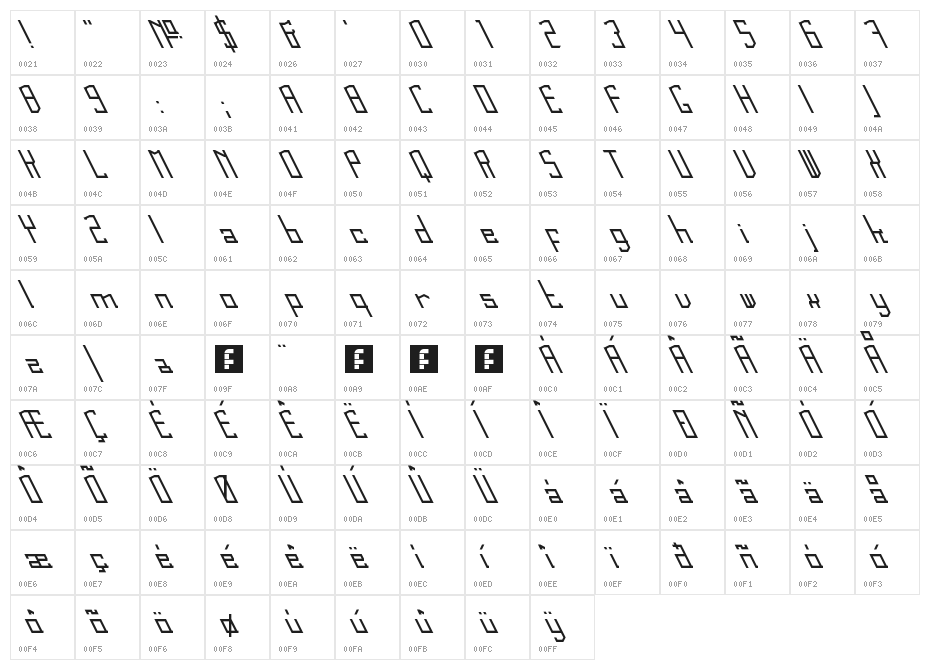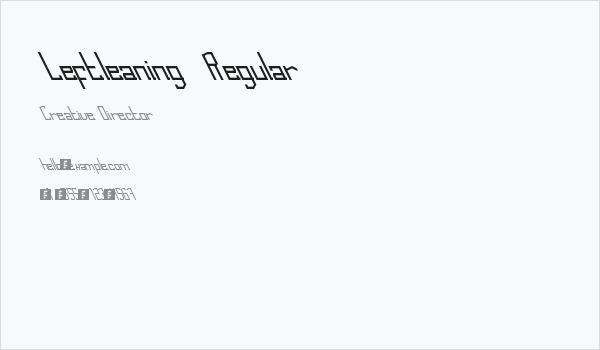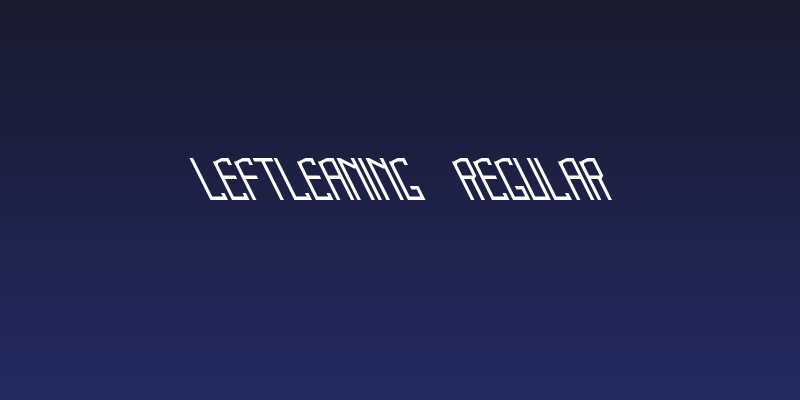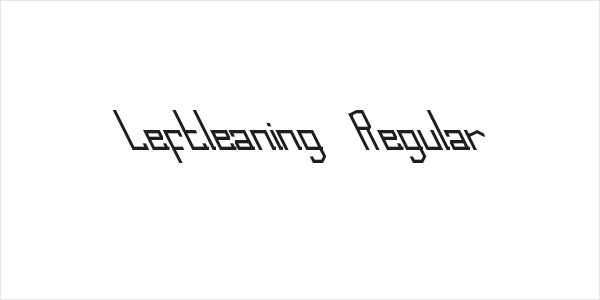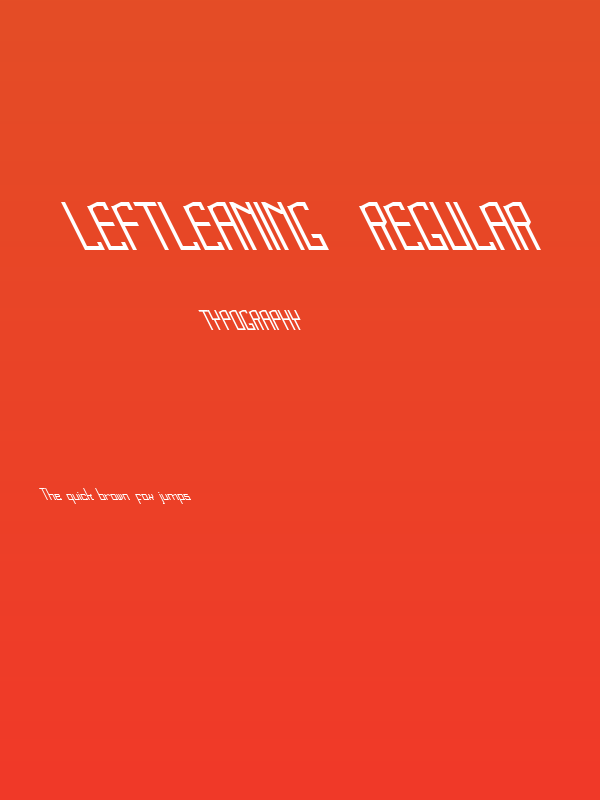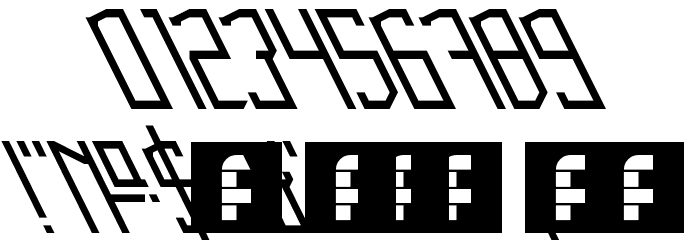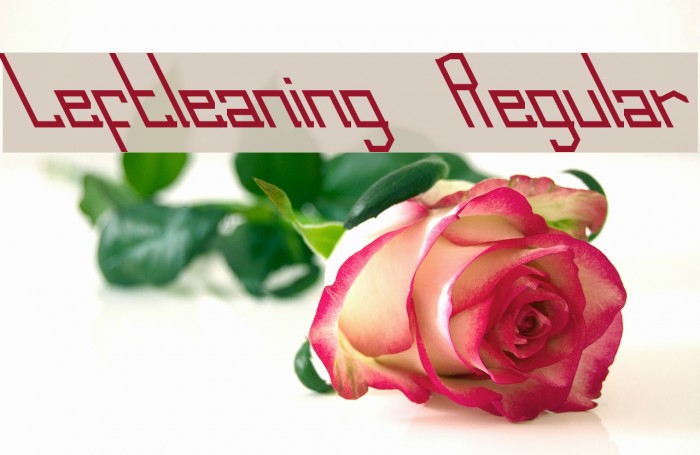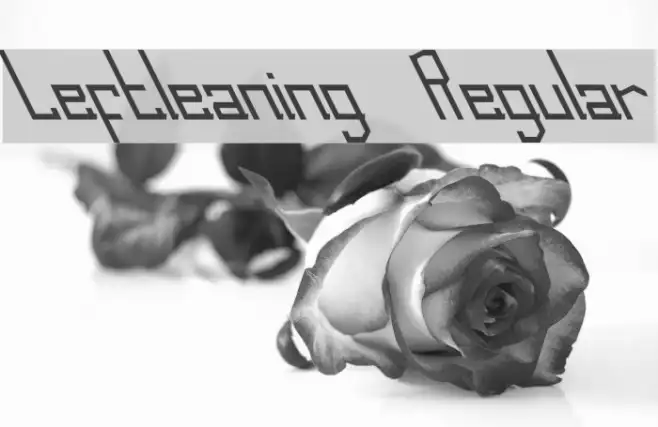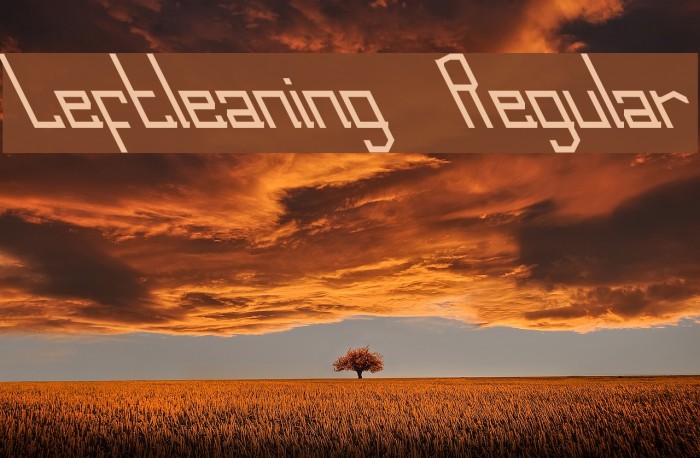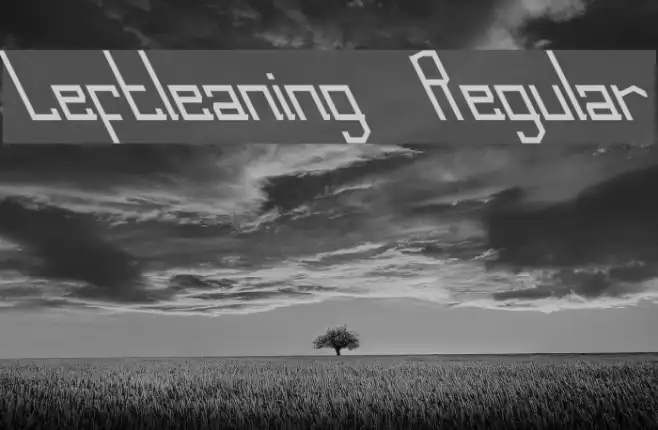
Leftleaning Regular Font
Leftleaning Regular Description
This font features a distinctive left-leaning, angular design that gives it a dynamic and modern appearance. The characters are composed of straight lines and sharp angles, creating a geometric and futuristic feel. The uppercase and lowercase letters maintain a consistent slant, enhancing the cohesive look of the typeface. The numerals and special characters follow the same stylistic approach, ensuring uniformity across all glyphs. This font's unique style makes it stand out, ideal for projects that require a bold and unconventional aesthetic.
| Proposed Projects | Ideal for branding, posters, album covers, and digital media where a modern and edgy look is desired. |